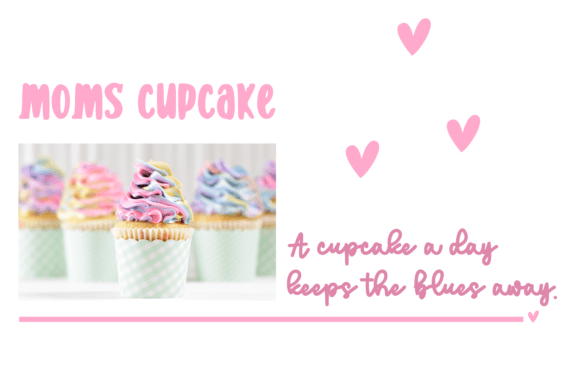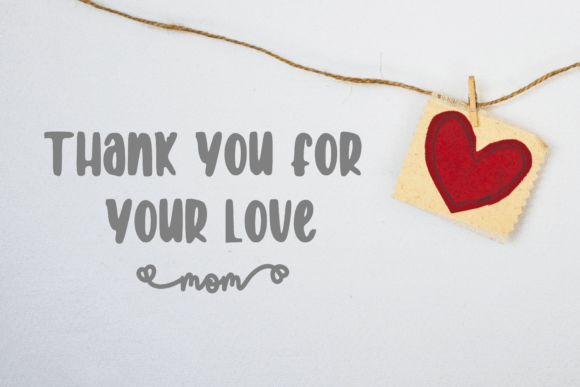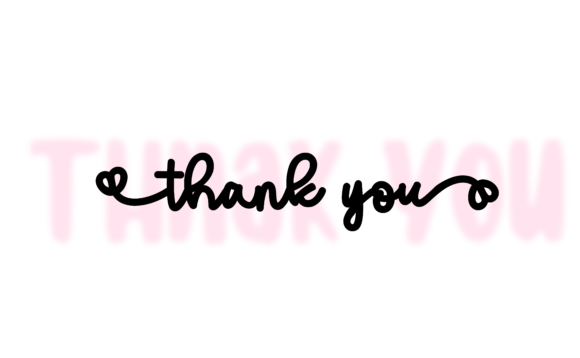
The Sweetest Font Duo: A Deep Dive into Cupcake Mommy
Cupcake Mommy is more than just a font duo – it’s a design solution that can elevate your creations to new heights. Here’s what I love about it:
- ✨ Romantic and elegant vibe: Cupcake Mommy’s sans serif and script combination is perfect for adding a touch of sophistication to your designs.
- 🎉 Versatile and adaptable: Cupcake Mommy can be used for a wide range of applications, from greeting cards to headlines.
While Cupcake Mommy is an excellent font duo, it’s not without its quirks:
- 🤔 Limited use in very formal designs: Cupcake Mommy’s elegant and romantic vibe might not be suitable for very formal or corporate designs.
The Story Behind Cupcake Mommy
Cupcake Mommy was designed by a talented type designer who wanted to create a font duo that would capture the essence of romance and elegance. The designer’s inspiration came from the world of baking and the delicate details of cupcakes. The result is a font duo that is both stylish and delicate, perfect for adding a touch of sophistication to your designs.
Q: Is Cupcake Mommy suitable for body text?
A: While Cupcake Mommy is a beautiful font duo, it’s best suited for headlines and titles. For body text, you may want to choose a font with better readability.